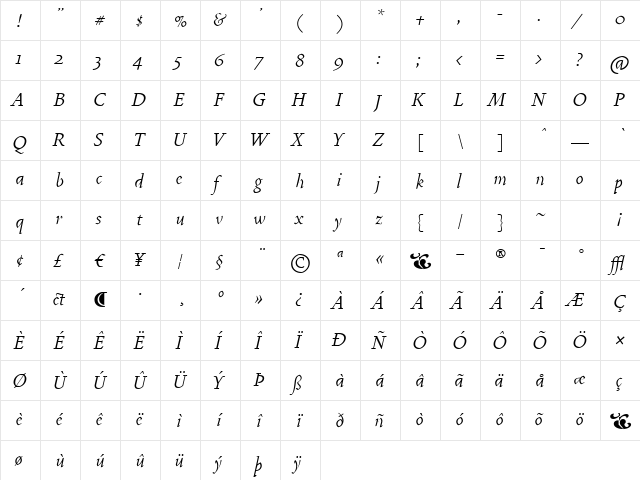
VendettaLightItalic Italic Font Preview
| Foundry | Emigre |
| Designer | John Downer |
Design Context for VendettaLightItalic Typeface
VendettaLightItalic takes a measured approach to typography — its balanced proportions and neutral character make it a reliable workhorse for both digital and print work. The dynamic lean of this cut emphasises speed and emphasis in any layout. Its slender proportions lend an understated elegance to any composition.